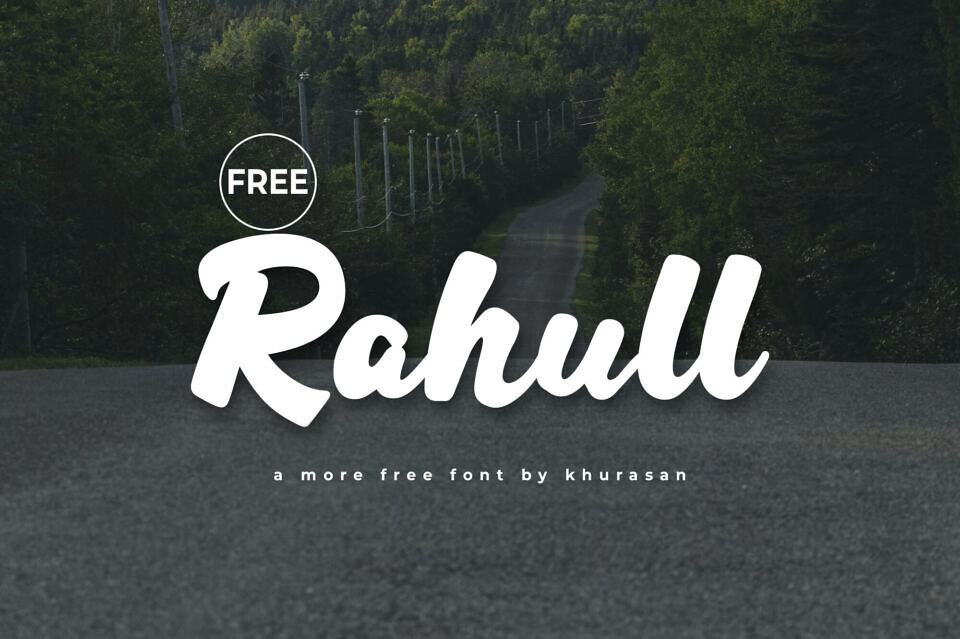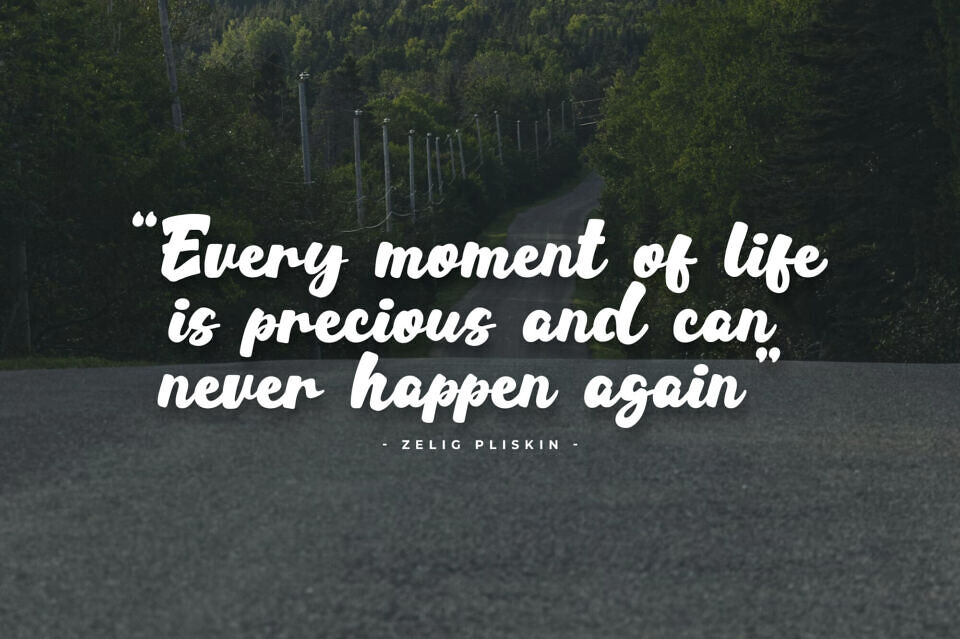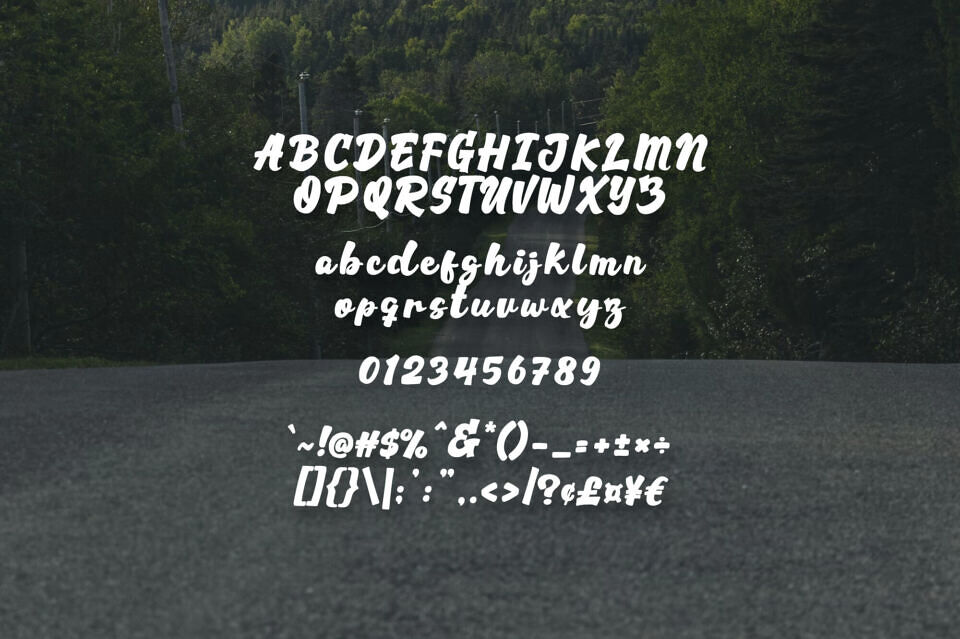
Rahull is a modern handwritten script font with a clean, flowing style that mimics natural penmanship. It combines bold playfulness with modern elegance, featuring thick strokes and soft edges. Its versatility makes it perfect for casual branding, social media, and packaging.
With a balance of weight and legibility, it excels in large formats like signage and billboards. The typeface adds a personal, handmade touch to digital and physical content, giving it a friendly and contemporary feel.